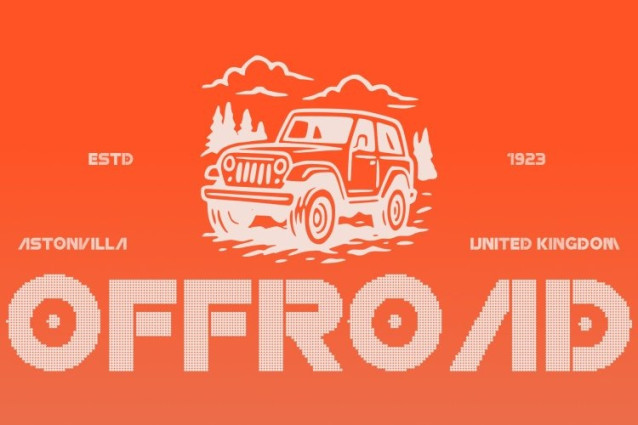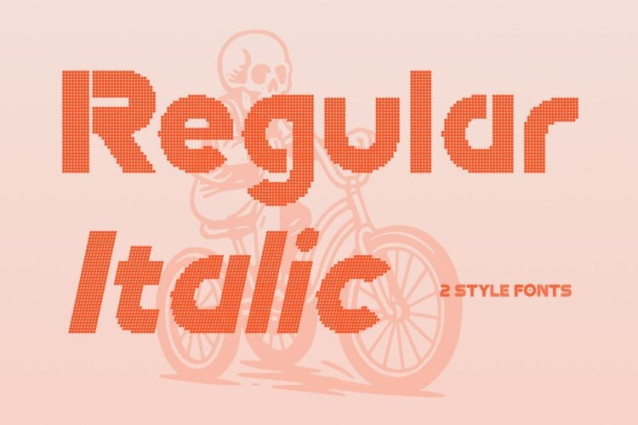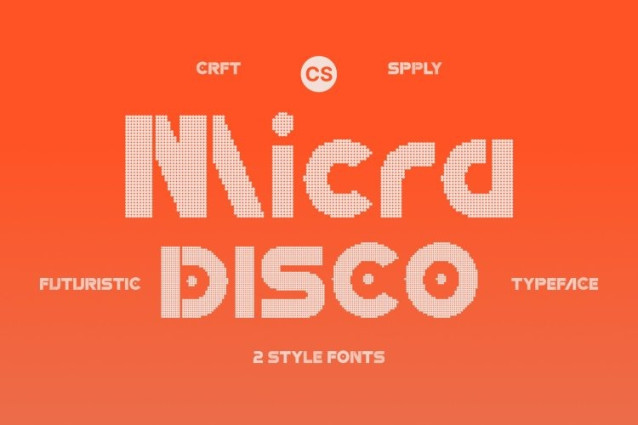
CS Micra Disco Font
CS Micra Disco Font This is a bold, futuristic display font that fuses techno-inspired geometry with high-energy disco flair. Its sharp, confident forms and industrial-inspired structure project modernity and movement, while subtle rhythmic curves and angular details evoke flashing lights, neon grids, and the pulse of the dance floor. Perfect for designs that demand attention, innovation, and vibrant energy.
Geometric Structure with Nightlife Rhythm
The font’s strong lines, precise angles, and modular proportions give it a structured, industrial feel, while its experimental shapes introduce motion and dynamism. Each letter carries a visual beat, creating a sense of rhythm and forward momentum ideal for posters, event branding, and high-impact displays.
Experimental Techno Style for Bold Visuals
This font pushes beyond conventional typography, blending geometric rigor with creative freedom. Its unconventional forms create a visual language that feels progressive, futuristic, and energetic, making it perfect for projects that want to stand out and embrace modern techno-culture aesthetics.
Perfect for Branding, Posters, and Futuristic Campaigns
This font excels in logos, branding, digital campaigns, festival visuals, and urban creative projects. Its techno-industrial foundation combined with disco-inspired energy makes CS Micra Disco a go-to choice for designers seeking bold, forward-looking visuals that radiate movement, modernity, and nightlife style.